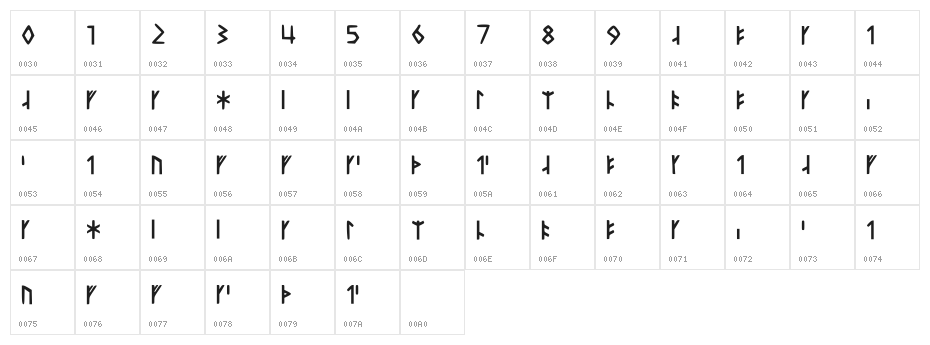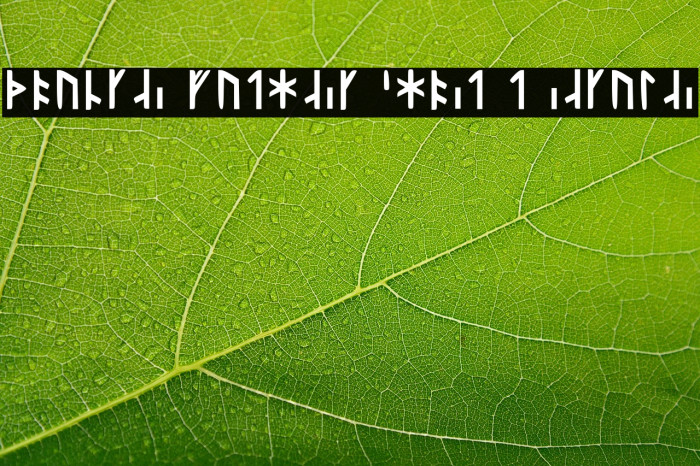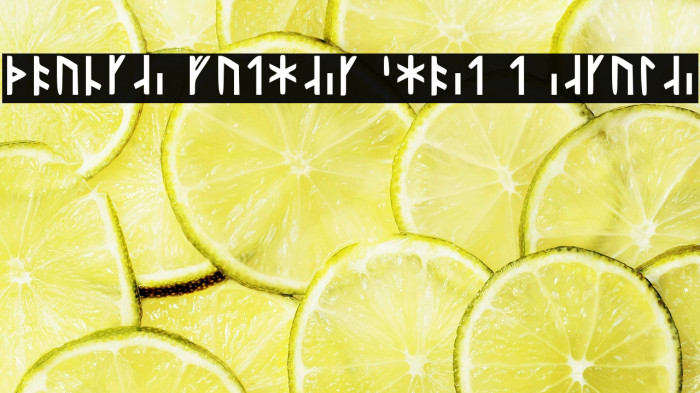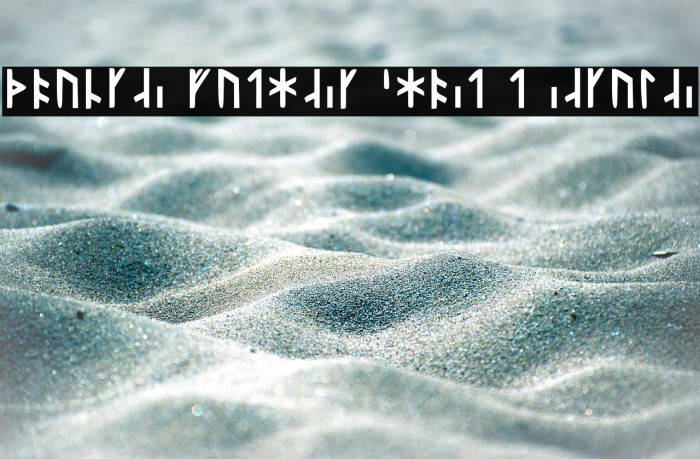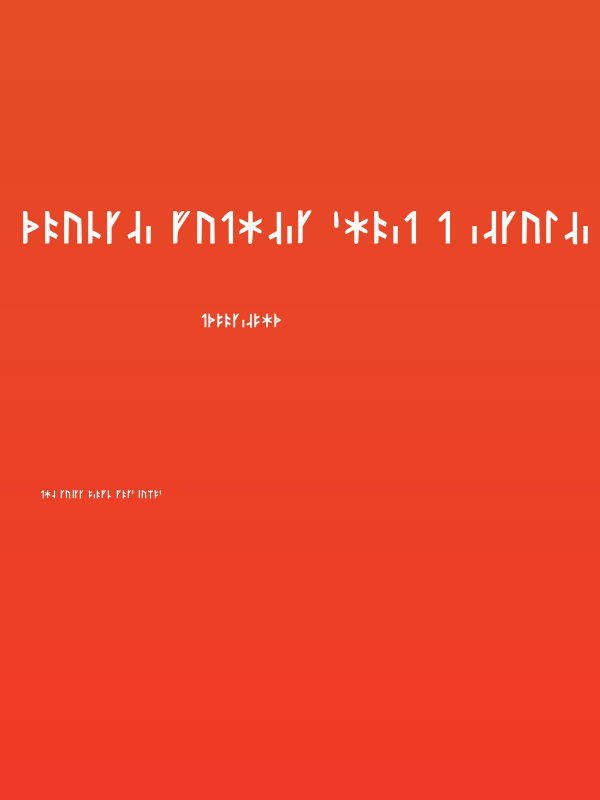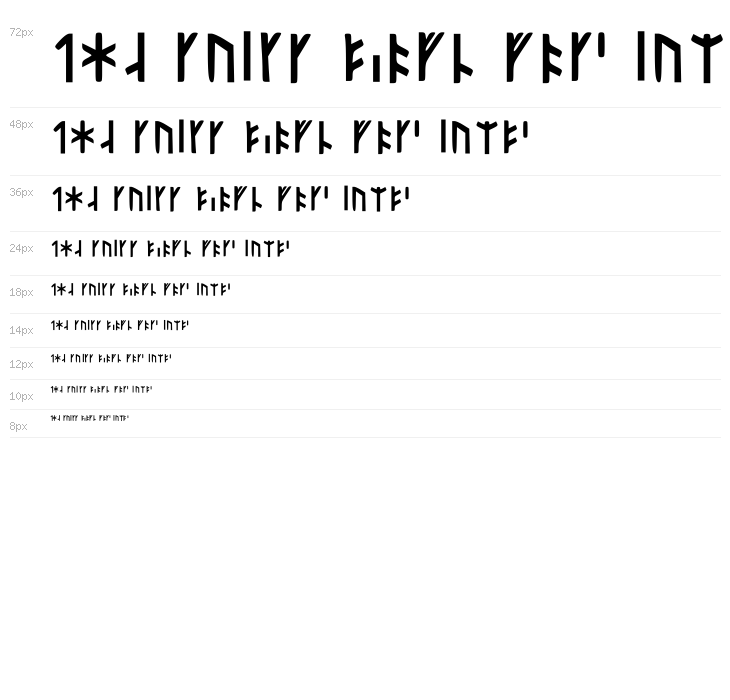
Younger Futhark Short T Regular Font
Younger Futhark Short T Regular Description
This font is inspired by the ancient runic alphabets, specifically the Younger Futhark, which was used during the Viking Age. The characters are angular and bold, with a distinct geometric style that reflects the historical origins of runes carved into wood or stone. Each character is crafted with a sense of authenticity, maintaining the traditional look while ensuring legibility. The font captures the essence of Norse culture and mythology, making it ideal for projects that require a historical or mystical touch. The numerals and special characters are designed to complement the runic letters, providing a cohesive look across all elements.
| Use Case | Logos, Headlines, Themed events |
| Proposed Projects | Ideal for historical or fantasy-themed projects, such as book covers, game designs, or cultural exhibitions. |